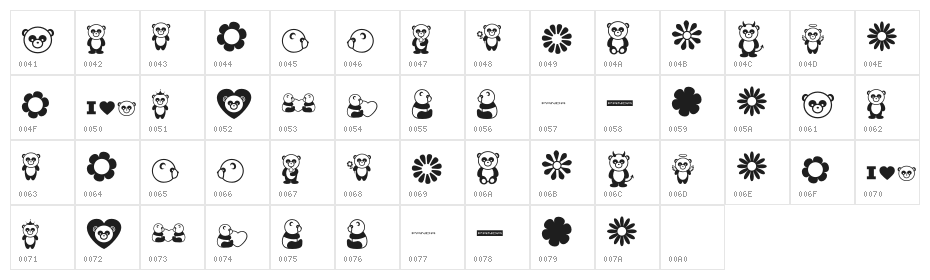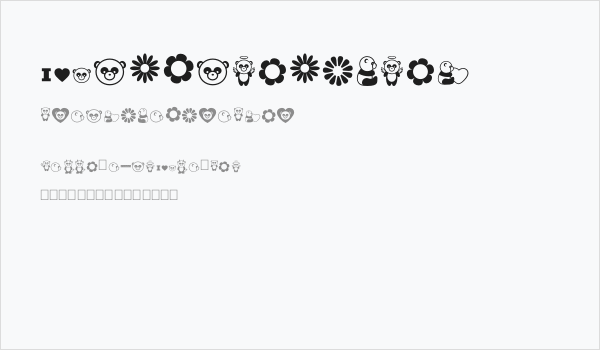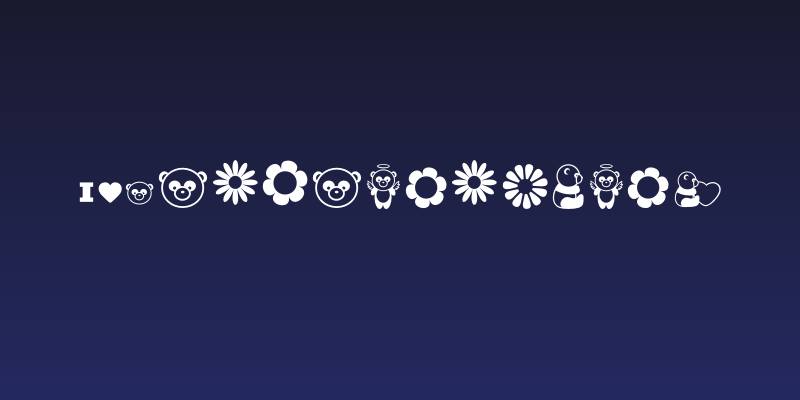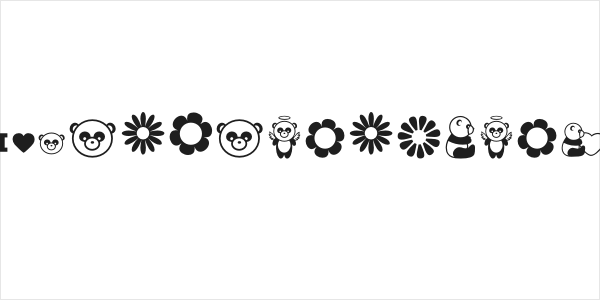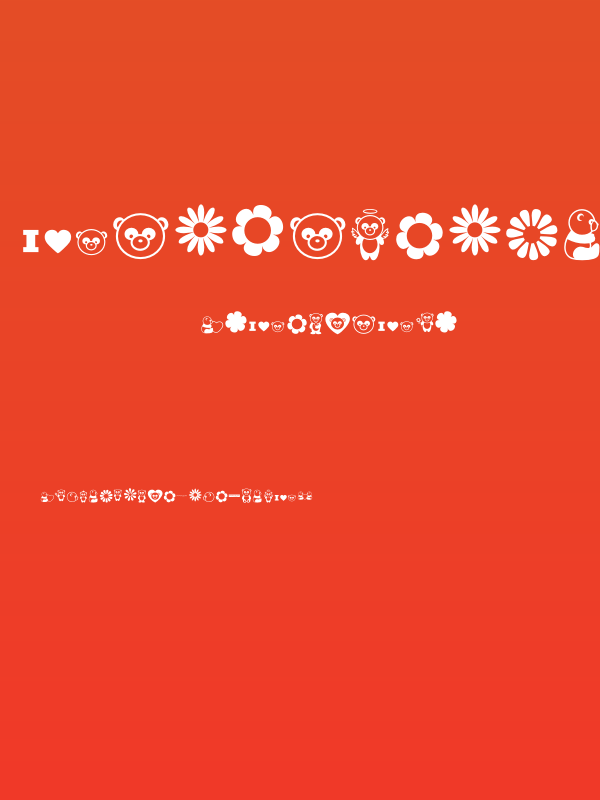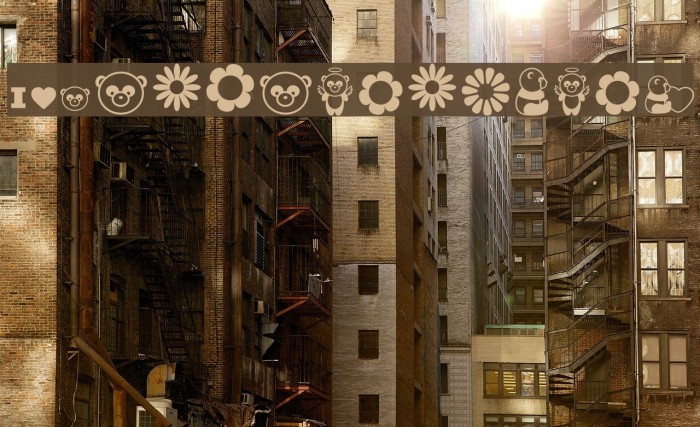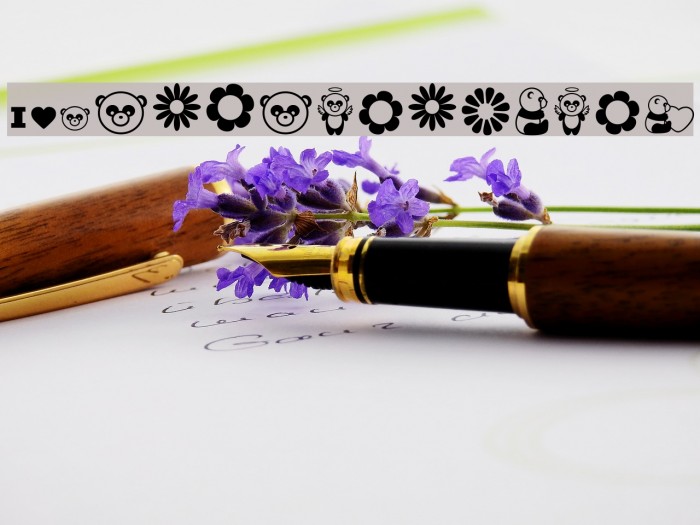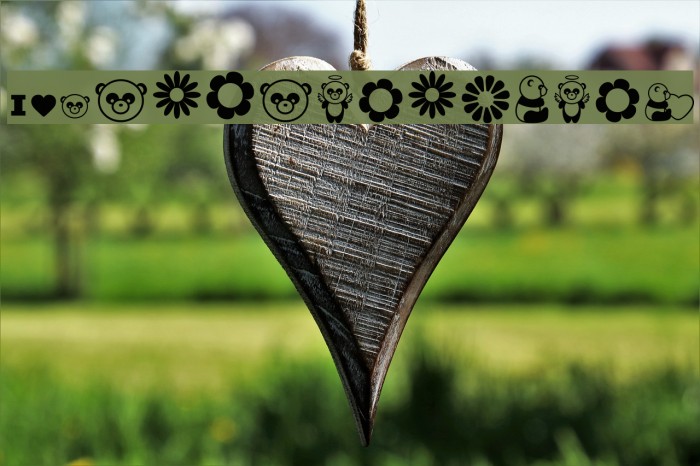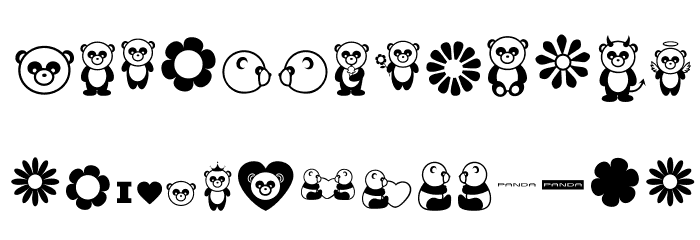
PandamoniumOT Font
PandamoniumOT Description
This is a decorative font featuring playful and whimsical panda-themed icons. The characters are represented by various panda illustrations, flowers, and heart shapes, creating a fun and engaging visual experience. The style is cartoonish and light-hearted, making it suitable for projects that require a touch of humor and creativity. The icons are bold and clear, ensuring they stand out in any design. The font is perfect for children's materials, playful branding, or any project that aims to convey a sense of joy and friendliness.
| Use Case | Logos, Decorative elements, Children's materials |
| Proposed Projects | Ideal for children's books, playful branding, greeting cards, and fun event invitations. |